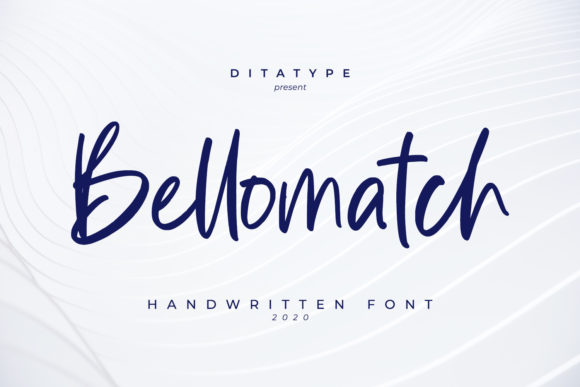
Welcome to the enchanting world of Bellomatch, a magnificent script font family that will cast a spell on your creative projects, transforming them into masterpieces. Indulge in the exquisite beauty of Bellomatch, a timeless handwritten font that captures the essence of elegance and sophistication, leaving you spellbound with its enchanting allure.
Unleash your creativity with Bellomatch, the perfect font for crafting captivating logos that command attention and leave an unforgettable impression. This font's intricate details and flowing lines will make your designs stand out from the crowd, adding a touch of magic to your branding efforts.
Embrace the versatility of Bellomatch, a font that adapts effortlessly to a myriad of design projects. Whether you're creating stunning quotes for social media, designing eye-catching posters, or crafting personalized invitations, Bellomatch will elevate your creations to new heights of beauty and sophistication.
With every letter meticulously crafted to perfection, Bellomatch breathes life into your designs, infusing them with a unique and captivating charm. Its enchanting curves and delicate flourishes dance across the page, captivating your audience and leaving them mesmerized by your creative brilliance.
Transport yourself to a realm of creativity where Bellomatch takes center stage, guiding you through a symphony of artistic expression. This font is your muse, inspiring you to weave tales of beauty and enchantment through your design projects, leaving behind a trail of awe and admiration.
Make Bellomatch your font of choice and unlock the gateway to a world of design possibilities. Let its timeless elegance and captivating charm ignite your imagination, propelling you to new heights of creativity and success. Experience the magic of Bellomatch today and be captivated by its enchanting allure.